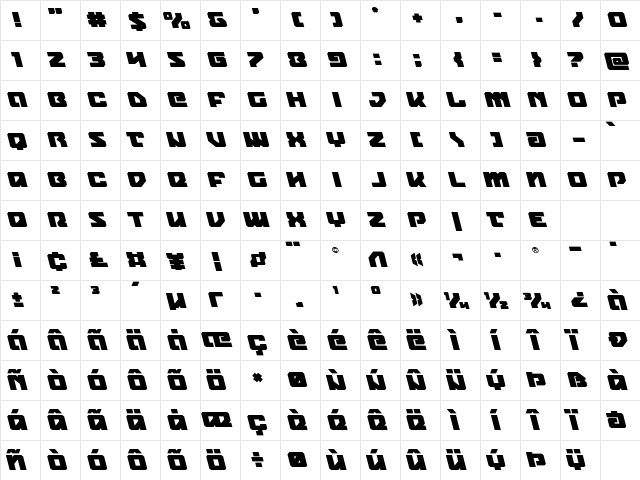
Legacy Cyborg Leftalic is a composed and adaptable typeface that performs quietly and consistently across a wide range of design contexts. The slanted form adds forward momentum and visual energy.